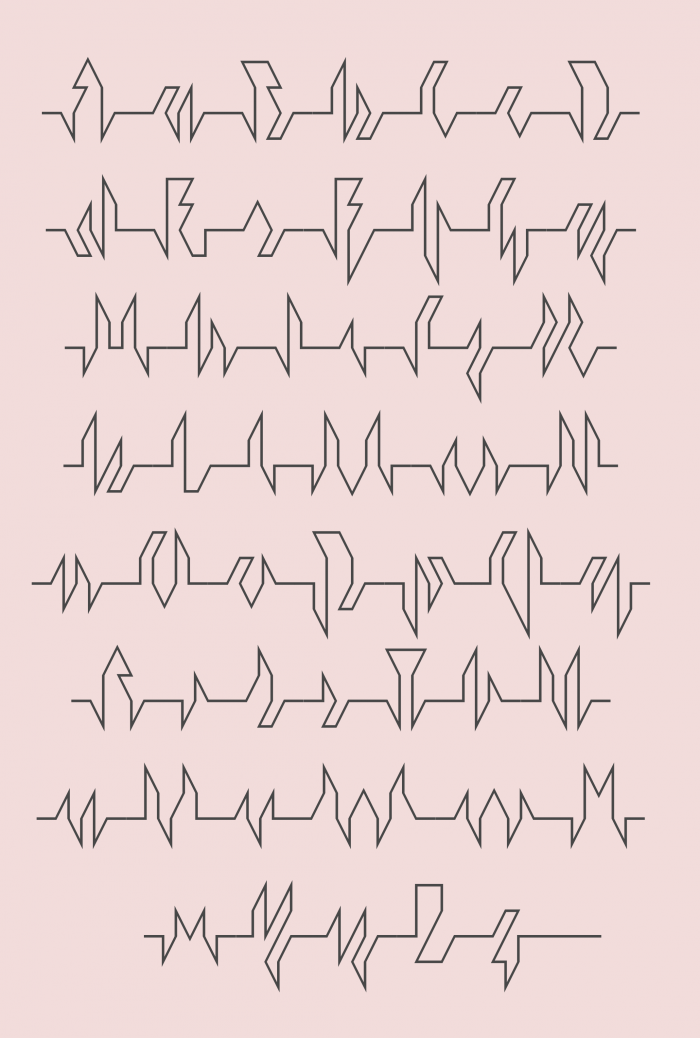
... a script ... abstract, rythmical, mysterious. Great Lovecomp entry!
Great idea (but a wee bit tricky to read).
I love the idea behind this one! The baseline on c and d seems a bit low and doesn't match up with the rest of the glyphs.
@four - the reason the c and d aren't aligned with everything else at the moment is because some are over 48 bricks high. I am in the process of making each glyph smaller to comply with the competition rules.
@p2p: this is probably a code for love letters, legible only if your love gave you the key ;)
I love this! Great sample as well. I gave you my 10 awhile back but didn't have time to write a comment.
Maybe the most inventive entry, even if a little hard to distinguish.
Love in the abstract. Genius.
typeface near the borderline between being still legible and being already purely asemic are most interesting to me... thus i admire this font!
The more I look at it the more I'm fascinated .......
I've found a good idea to troll my friends with this! heheh
"this is probably a code for love letters, legible only if your love gave you the key ;)"
Or if you looked close enough